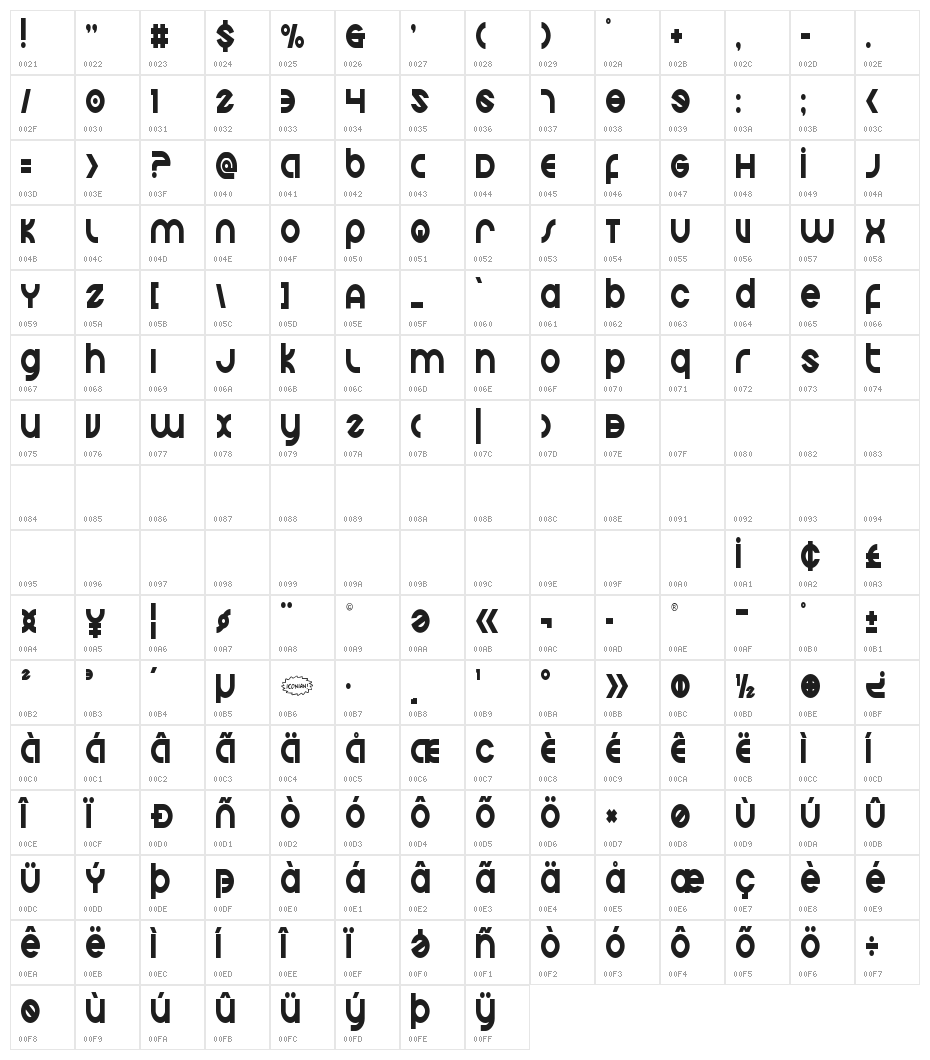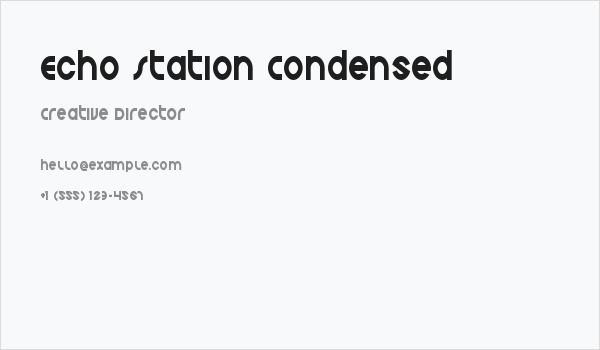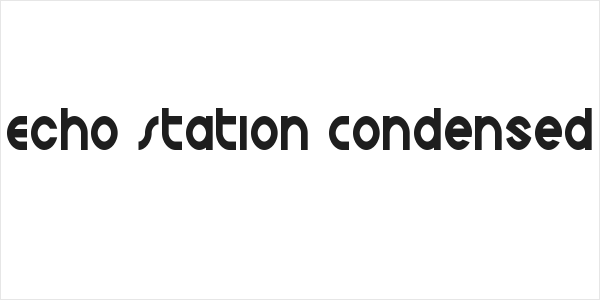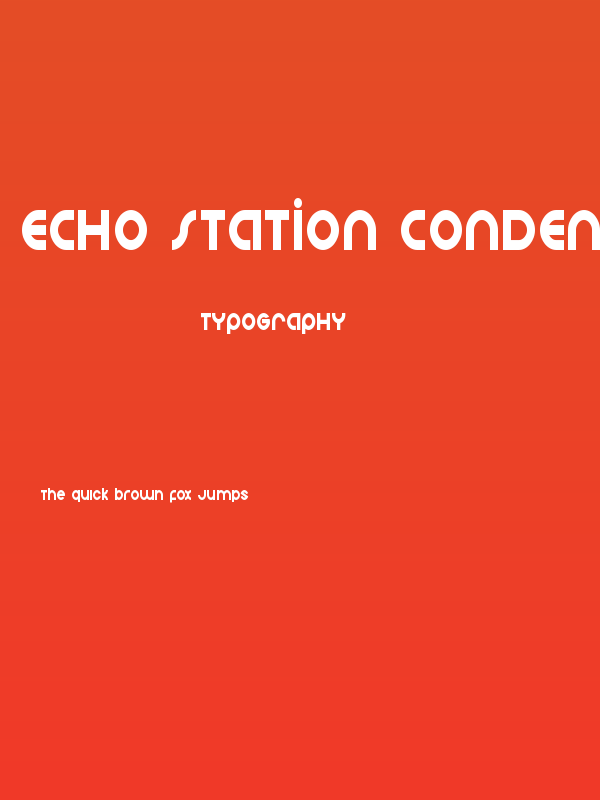
Echo Station Condensed Font
Echo Station Condensed Description
This font features a bold and modern design with a geometric and futuristic aesthetic. The characters are constructed with a consistent stroke weight, creating a uniform appearance. The rounded edges and circular elements within the letters give it a unique and playful look. The condensed width allows for efficient use of space, making it suitable for headlines and titles. The font maintains a clean and minimalistic style, with a high contrast between the thick strokes and the negative space. The overall design is sleek and contemporary, making it ideal for projects that require a modern and innovative touch.
| Proposed Projects | Ideal for branding, advertising, posters, and digital media where a modern and futuristic look is desired. |